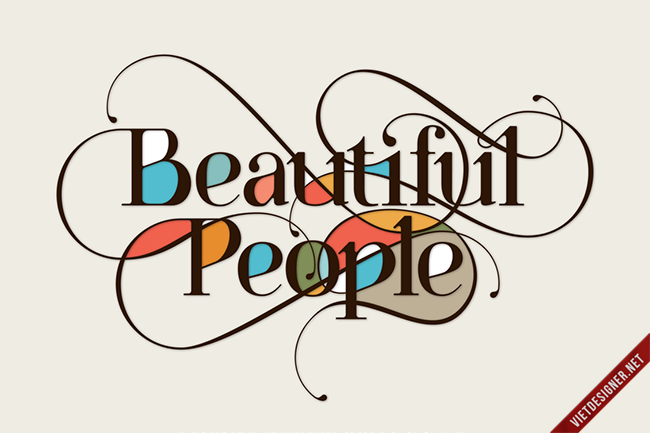
[Serif] Paris Pro Regular Việt hóa
Thông tin về font Paris Pro
Paris Pro, inspired by the Fashion world is the new and improved version of the popular Paris Typeface. Paris pro provides many more exciting ligatures than the first version, Amazing swashes, super cool open type features, fashionable custom ready made words for sexy headlines, multiple glyphs for letters along with many options writing the same word in different manners. Paris Pro Designs are geared towards upscale worldwide Fashion Magazines, promoting the ideal combination of Typography and Fashion, taking Fashion magazines to the next level [...]